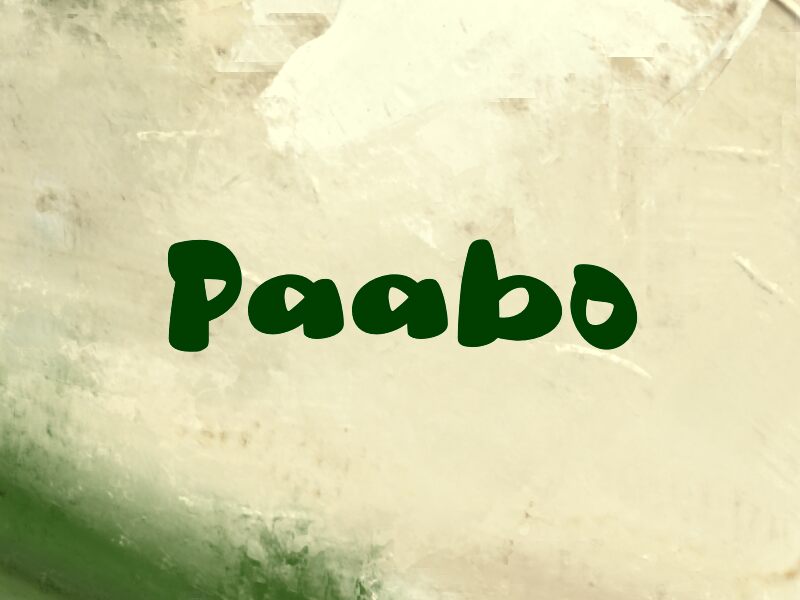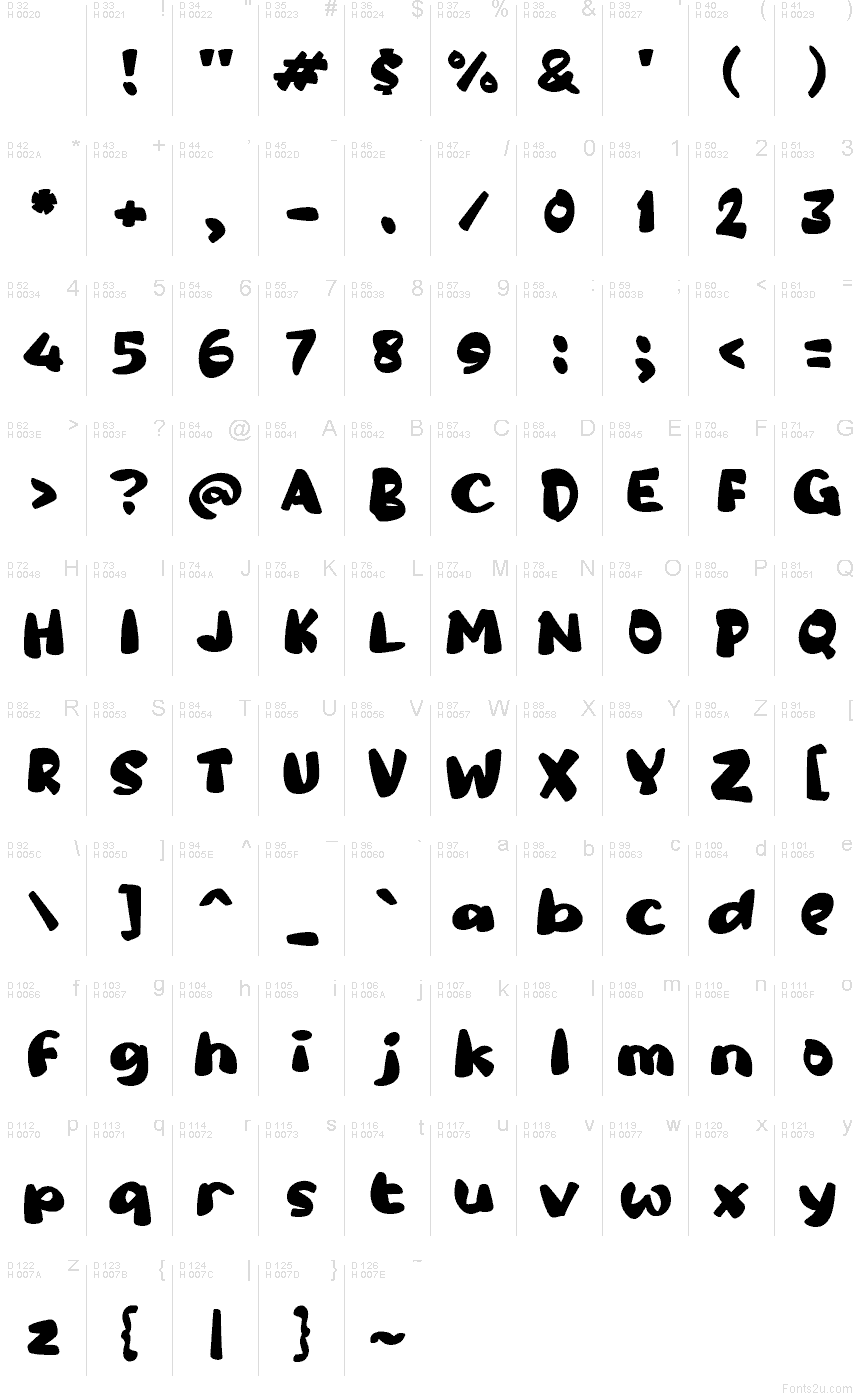
Paabo
Paabo font by wep is a free cartoon display typeface with big, inky letters that feel like they’ve been squeezed out of a marker. The chunky, rounded shapes and slightly wobbly rhythm give it a hand-drawn, bouncy energy that kids instantly recognize. It’s bold enough to hold its own on busy backgrounds, while the soft edges keep the tone friendly and approachable rather than loud or shouty.
Using Paabo, you can bring warmth and playfulness to kids’ book covers, birthday invitations, toy packaging, game logos, YouTube thumbnails, classroom posters, and sticker designs. This free font shines when set large, where the blobby curves and generous counters can really breathe. For supporting text, pair Paabo with a clean, simple sans serif to keep everything readable while letting the cartoon shapes do the smiling.